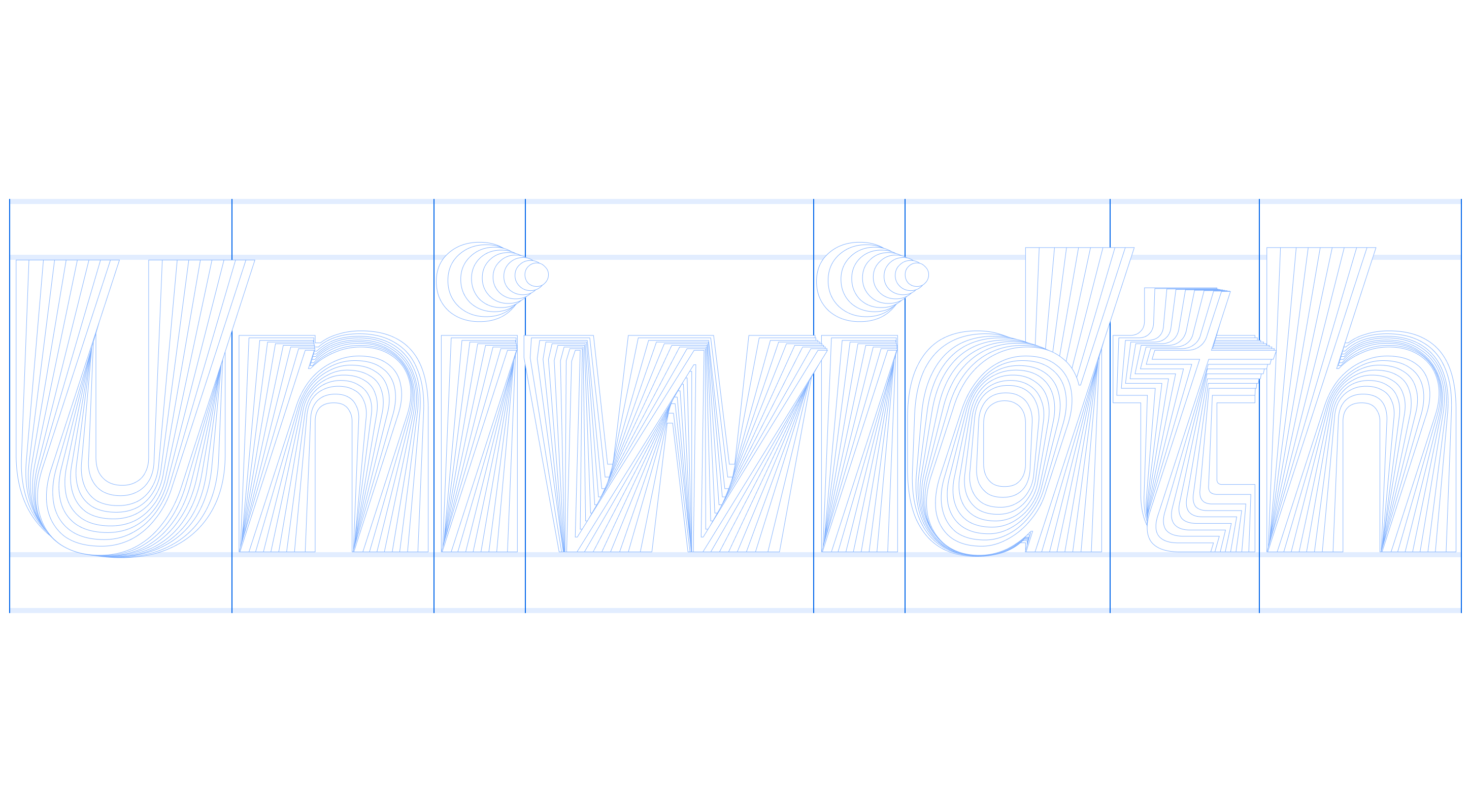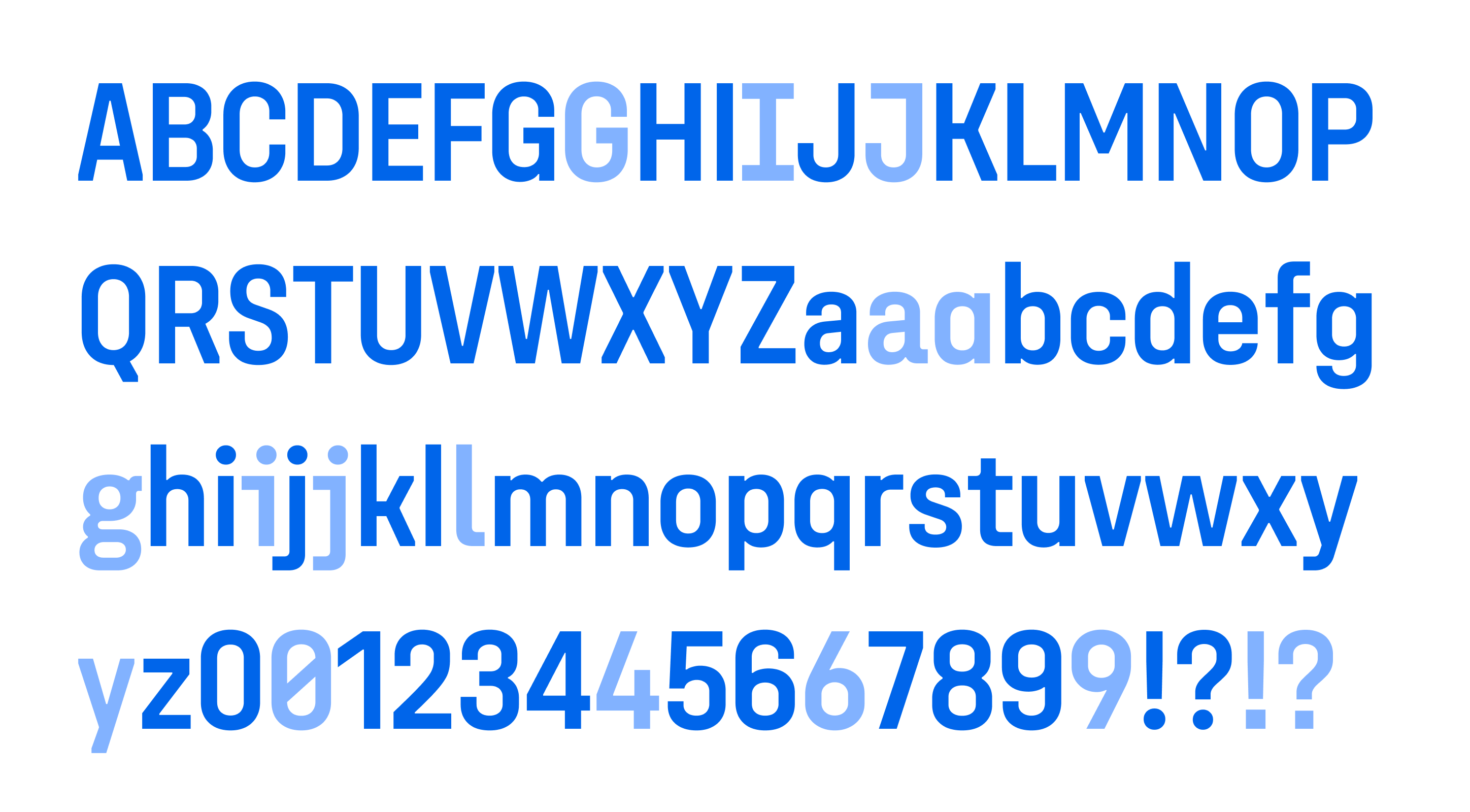
Unifora Narrow Collection
Full character set of Unifora Narrow, a slightly condensed width sitting between Condensed and Standard. Shows uppercase, lowercase, figures, punctuation, all 11 character alternates, and 3 stylistic sets displayed alongside the defaults
Wireframe view of the word "Uniwidth" in Unifora Narrow across all weights, showing consistent character widths across the weight axis
Close-up of lowercase "o" in Unifora showing the straight segments on round glyphs — a signature design detail of the family
Diagram illustrating Unifora's corner cuts on diagonal terminals — the scissors mark every termination in the word "New York" where angled strokes are trimmed to balance spacing
Unifora OpenType features: stylistic sets, square punctuation, high-legibility, open six and nine; character alternates for I, J, G, a, g, i, j, l, y, 4; ligatures, ordinals, slashed zero, tabular figures, and case-sensitive forms
Unifora Narrow
Unifora Narrow VF
Unifora Narrow is drawn at 87.5% of the standard character proportions—the most versatile width in the Unifora uniwidth variable sans-serif superfamily. It conserves horizontal space without the strict economy that Condensed demands, making it well-suited for sidebar labels, secondary navigation, compact body copy, and mobile layouts where breathing room is limited but readability must hold across longer passages.
Narrow bridges the utility of Condensed and the comfort of Standard: compact enough to pack information efficiently, open enough to read at length without fatigue. The uniwidth principle means that within Narrow, every glyph holds its advance width regardless of weight or style—interactive weight transitions such as a label shifting from light to bold on hover never reflow the surrounding text.
Unifora Narrow comes with 9 weights and matching italic and retalic styles with slants up to 18°. The variable font includes two axes: weight and slant.